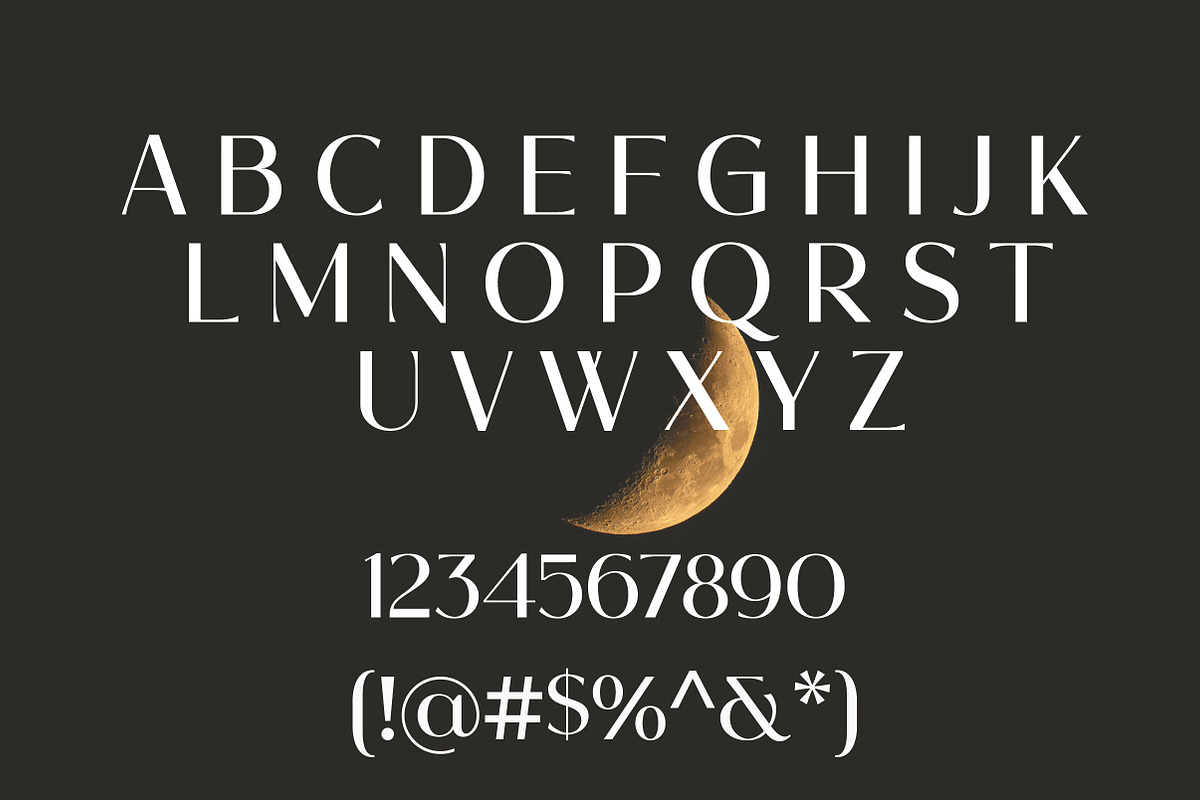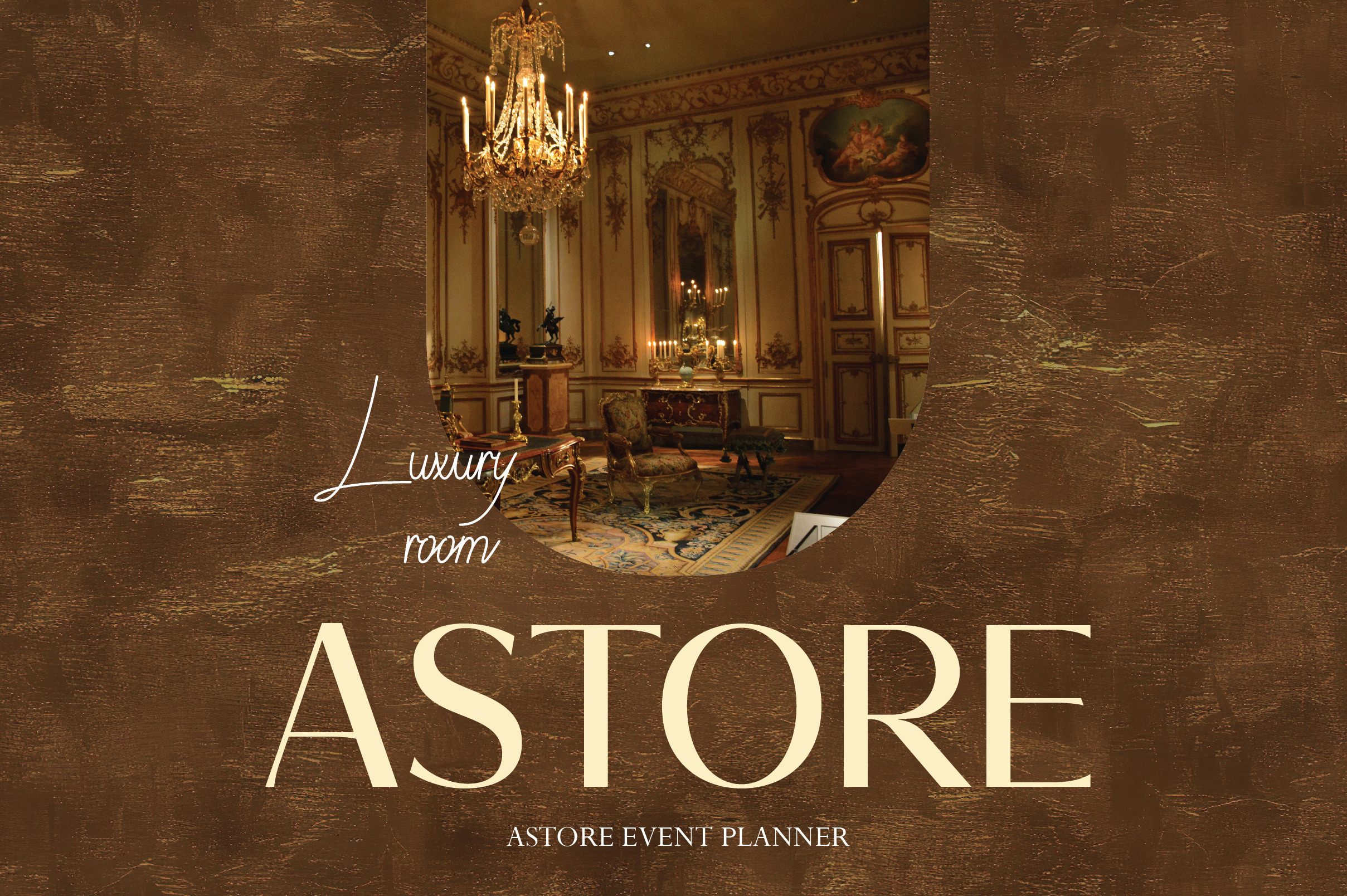
Zeyna | Stylish & Modern Serif Font
Zeyna is a chic and modern serif typeface that combines sharp elegance with clean simplicity. Designed in a refined Regular style, Zeyna offers a sleek look with just the right touch of personality, making it perfect for branding, fashion editorials, logo design, social media graphics, and packaging.
With well-balanced letterforms and smooth curves, Zeyna brings a contemporary feel to classic serif design. It works beautifully in both large headlines and smaller body text, offering flexibility for print and digital projects alike.
Zeyna is the go-to serif font for designers who want to blend sophistication with modern flair.